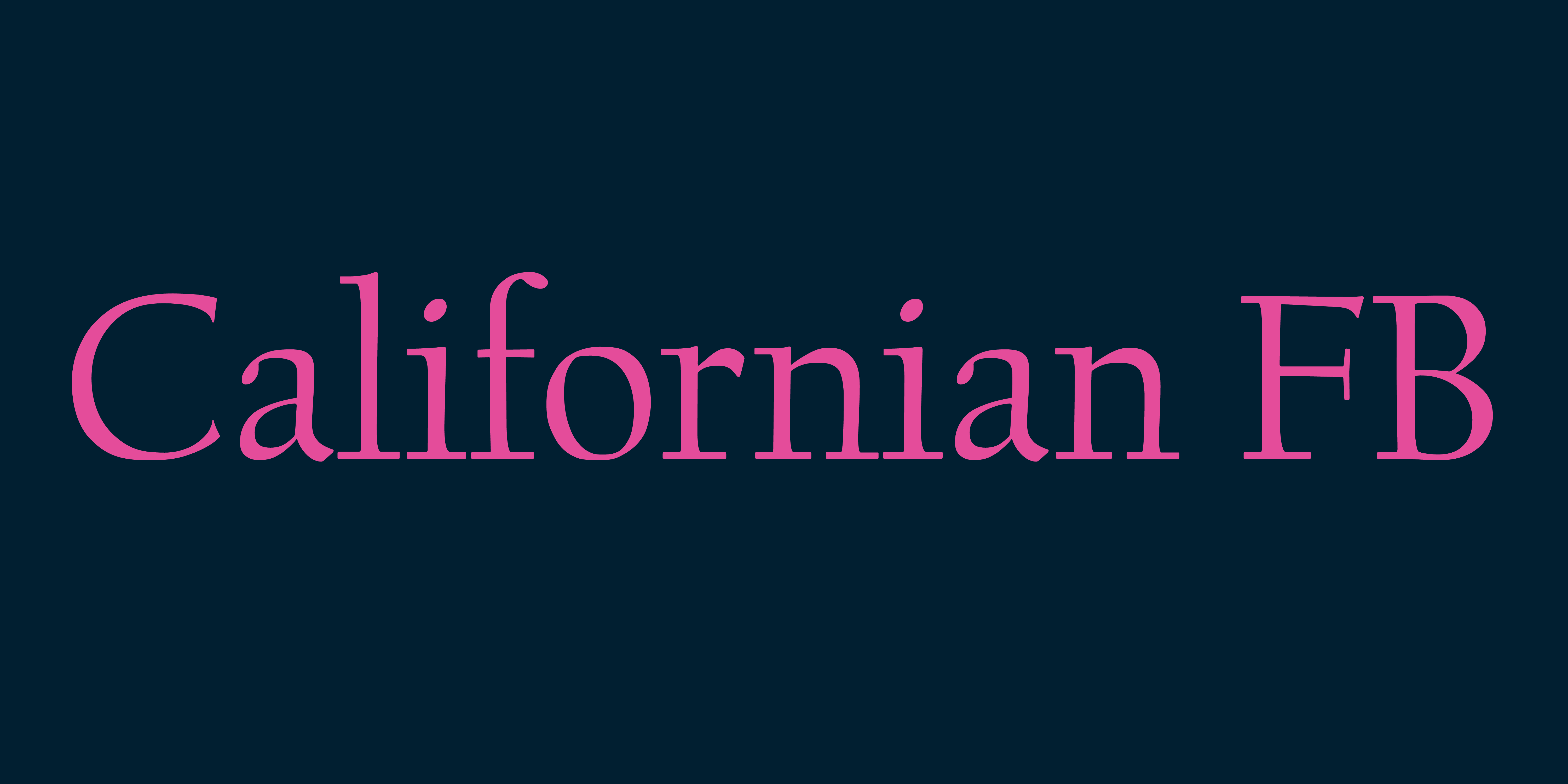
The Californian FB Font is an outstanding choice for projects that demand a blend of classic elegance, robust readability, and a distinct academic or literary charm. Rooted in the rich tradition of serif typography, often inspired by historical text faces, it's perfectly suited for book design, magazine layouts, academic journals, corporate annual reports, historical publications, and any design that requires a strong, authoritative, and highly legible presence. Its refined yet approachable character makes it ideal for conveying a sense of trustworthiness, heritage, and intellectual depth.
What makes Californian FB Font so exciting is its meticulously crafted design, balancing traditional proportions with exceptional clarity, making it a joy to read even in long passages of text. It typically features well-defined serifs, open counters, and a harmonious rhythm that ensures comfortable reading. This font carries a sense of gravitas and professionalism, making your content feel substantial and well-established. It’s a workhorse typeface that provides a solid foundation for any typographic system, offering a perfect harmony between classical grace and contemporary applicability. Its subtle details contribute to a feeling of quality and craftsmanship, elevating the overall visual experience.
The Californian FB Font family is typically comprehensive, offering a wide array of weights and styles to provide maximum flexibility for designers. You can expect a full spectrum from Light and Regular to Medium, SemiBold, and Bold, often accompanied by complementary italic versions for each weight. This broad family allows for sophisticated typographic hierarchies, enabling precise control over emphasis, flow, and visual balance within your designs. Some versions might also include small caps, old-style figures, or other OpenType features to further expand its utility and enhance its aesthetic versatility, making the Californian FB Font Free Download an incredibly versatile tool.
Whether you're designing a scholarly publication, crafting a prestigious brand identity, or producing a visually compelling print or digital document, the Californian FB Font Free Download offers an indispensable tool. Its classic charm and robust functionality make it a premier choice for any project that requires a typeface of lasting quality, professional polish, and enduring beauty.